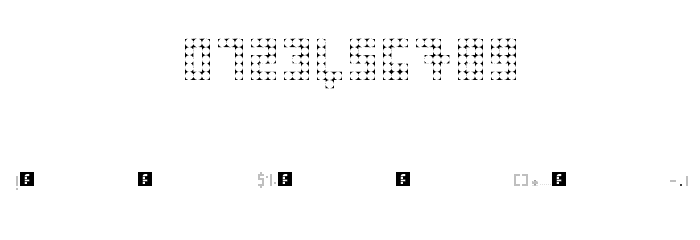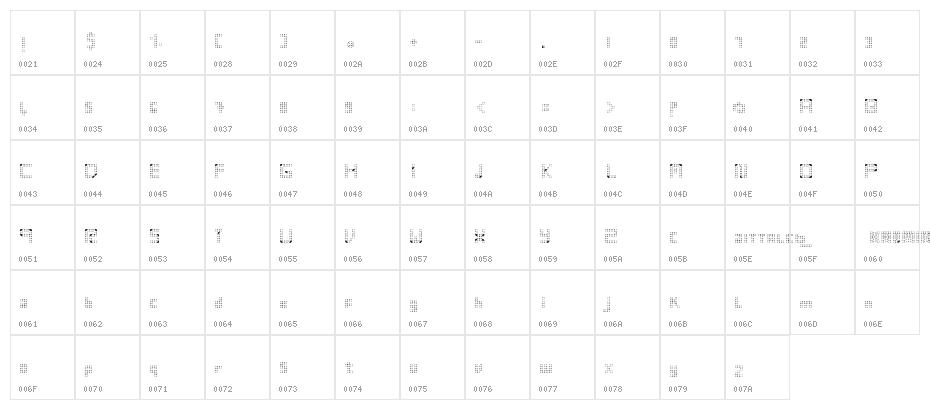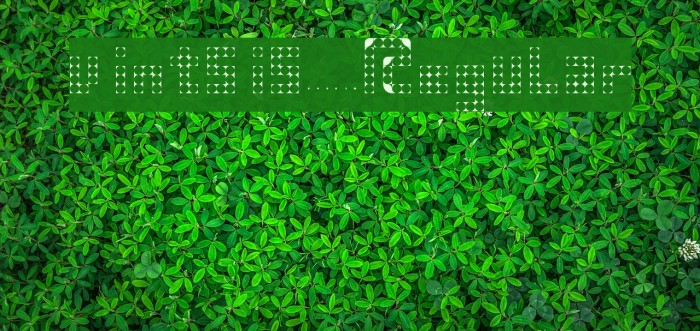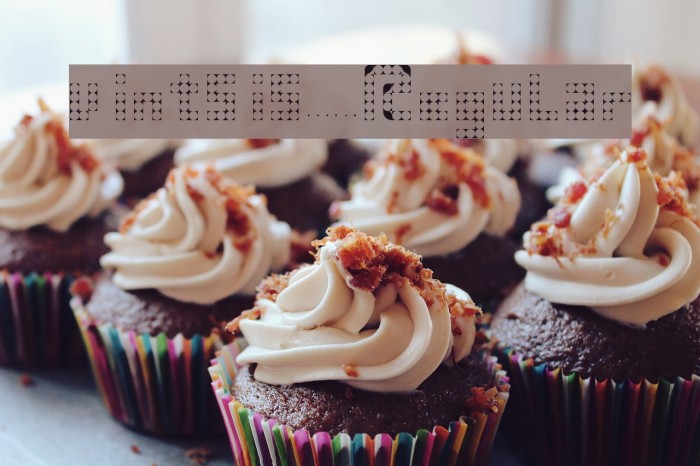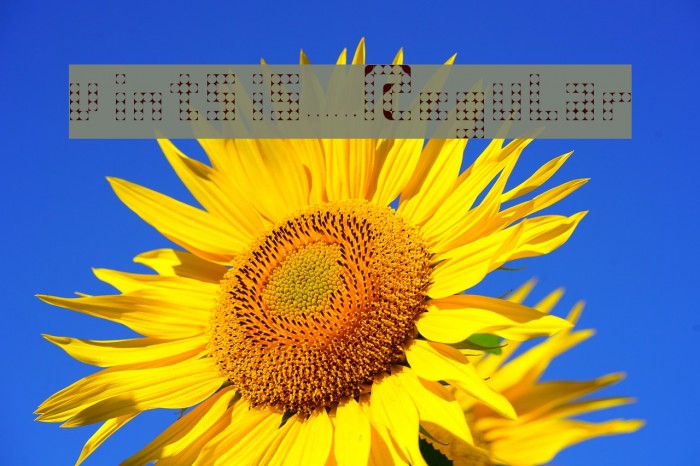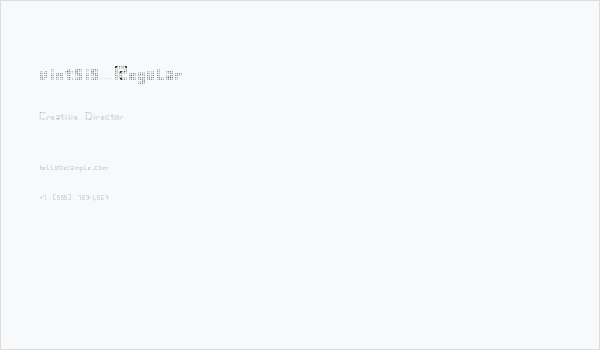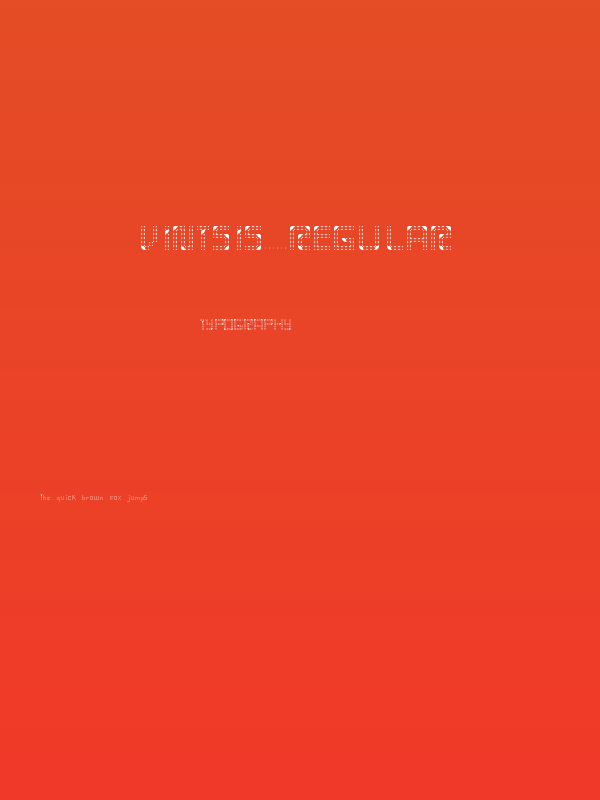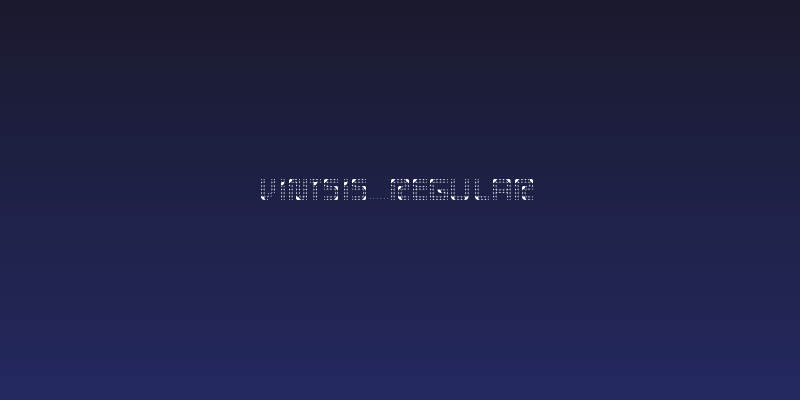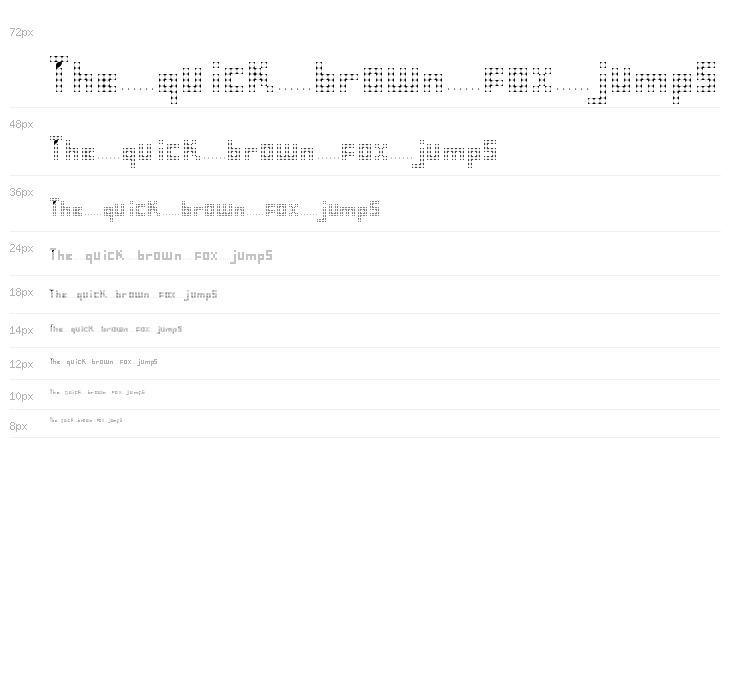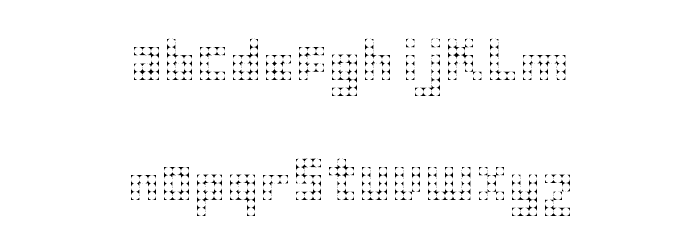
vintsis Regular Font
vintsis Regular Description
This font features a unique, pixelated design that resembles a digital or electronic display. Each character is composed of small, square dots arranged in a grid-like pattern, giving it a futuristic and tech-inspired appearance. The letters are evenly spaced, maintaining a consistent structure throughout. The font is highly stylized, making it ideal for projects that require a modern, digital aesthetic. Its geometric nature and distinct style make it stand out, suitable for creative and innovative design projects.
| Proposed Projects | Ideal for digital art, tech-themed posters, video game graphics, and electronic music album covers. |